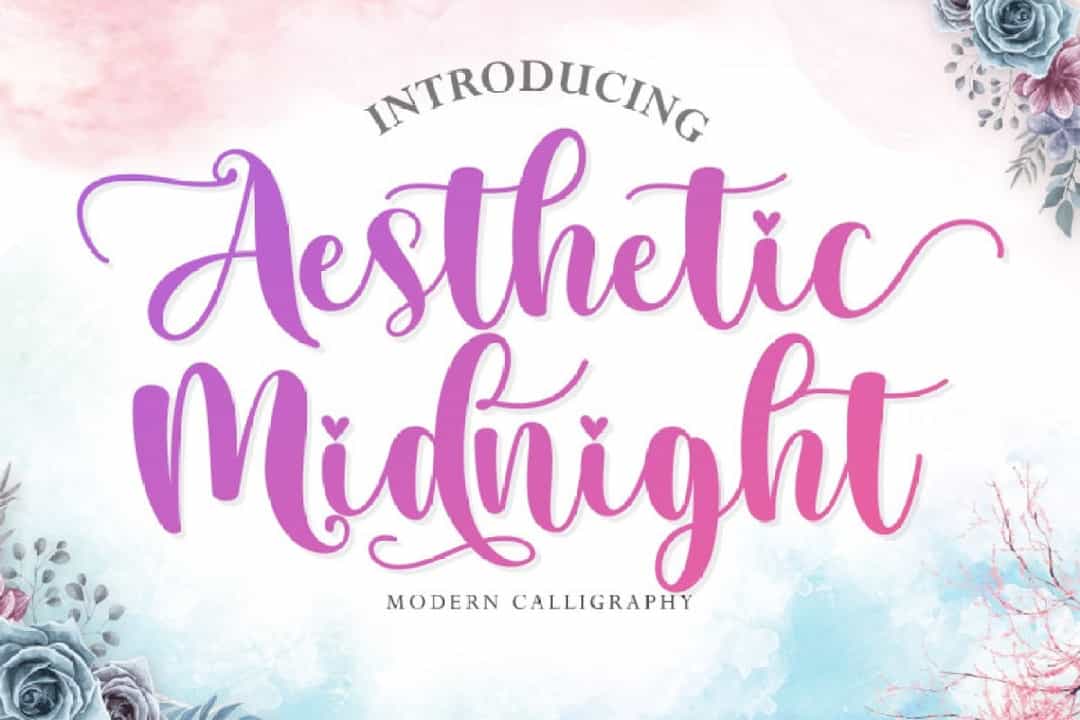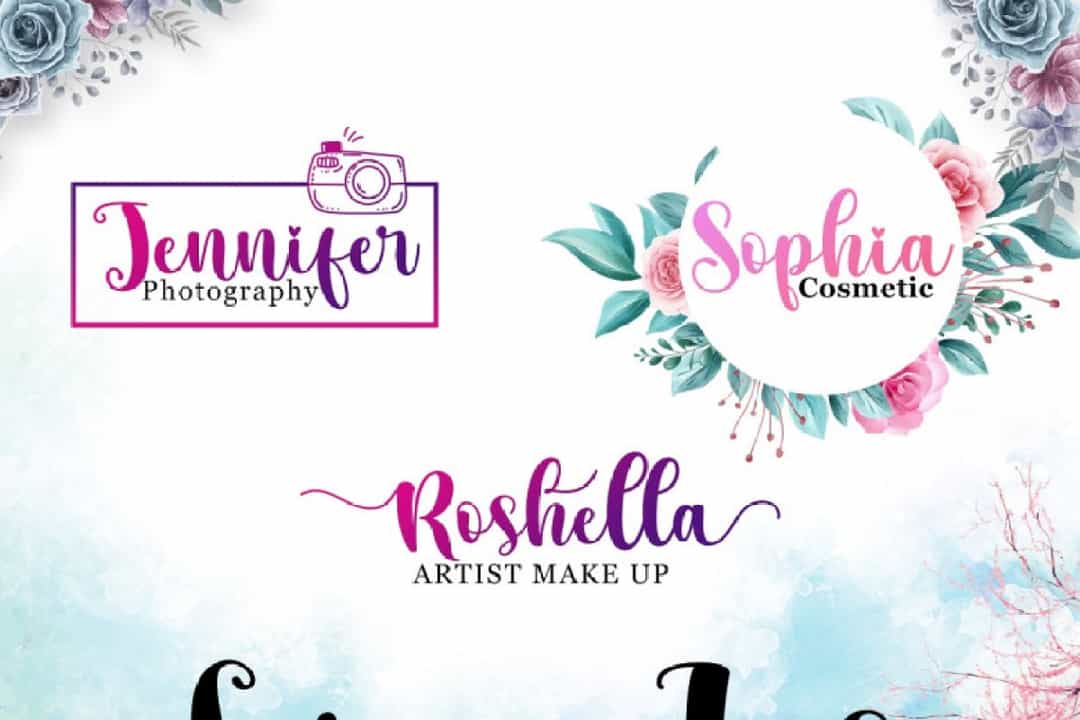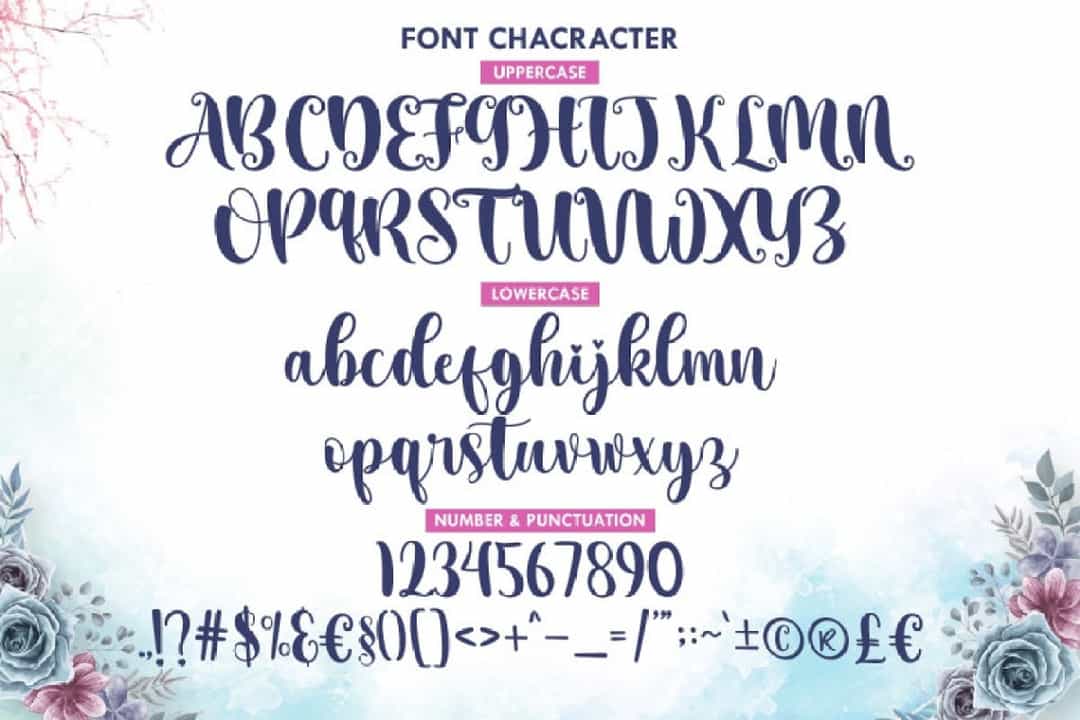
Aesthetic Midnight is an exquisite script typeface with charming, lively characters that appear to move across the page. As PUA encoded font, all its incredible characters and ligatures can be quickly accessed!